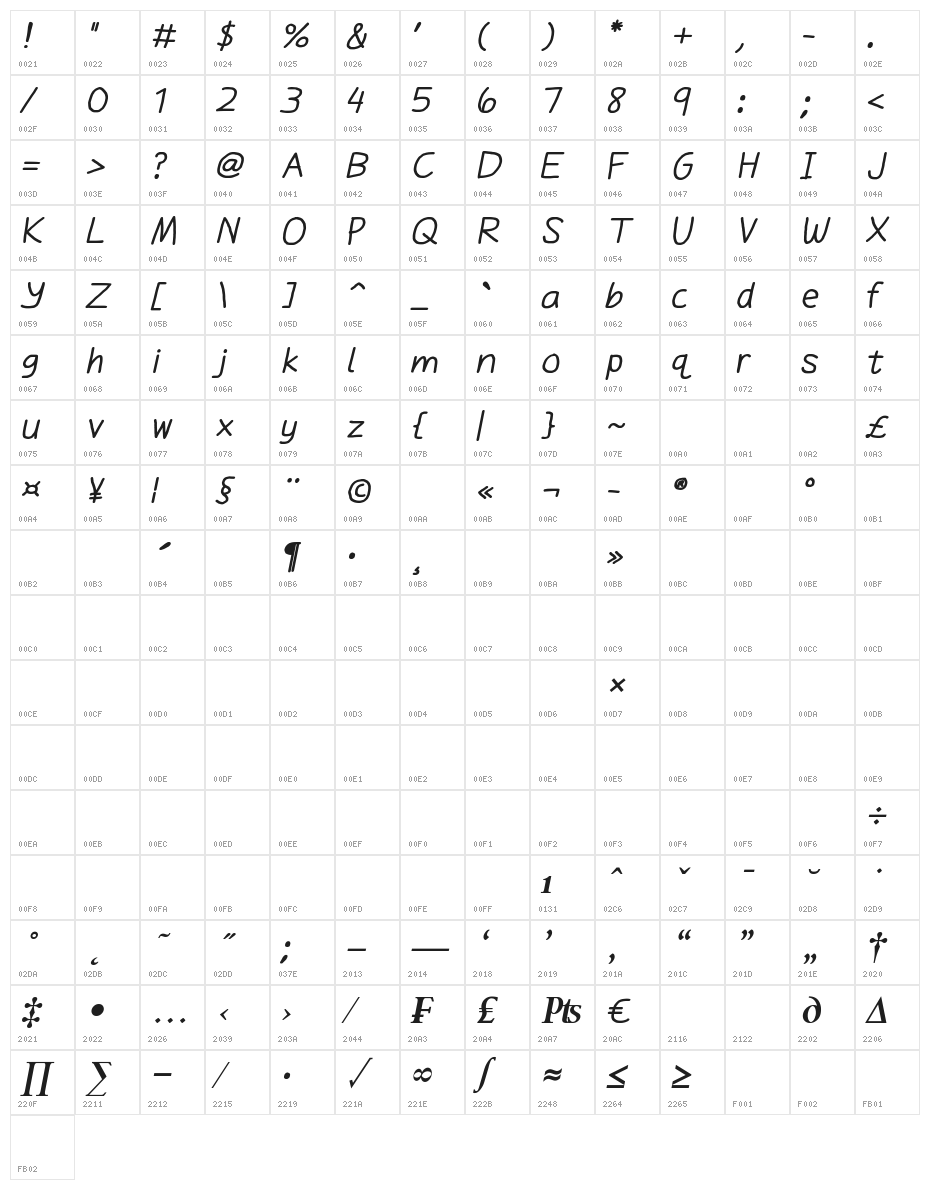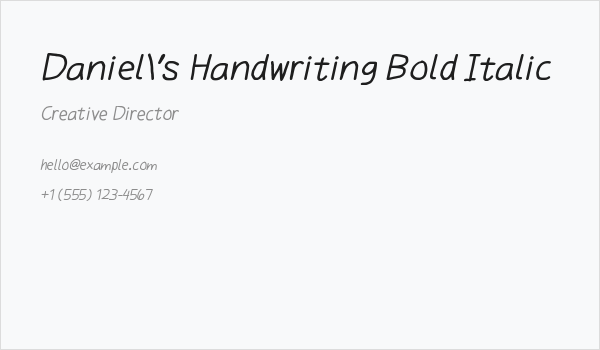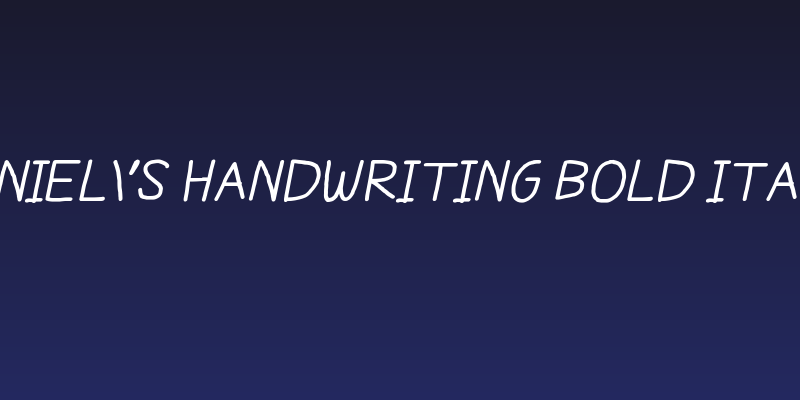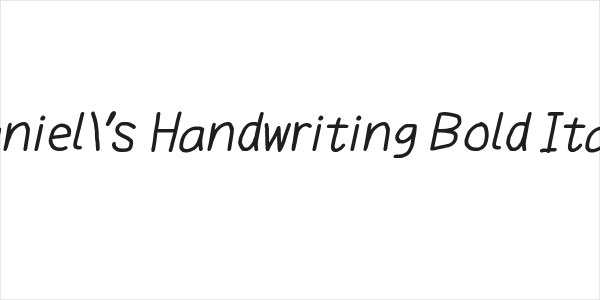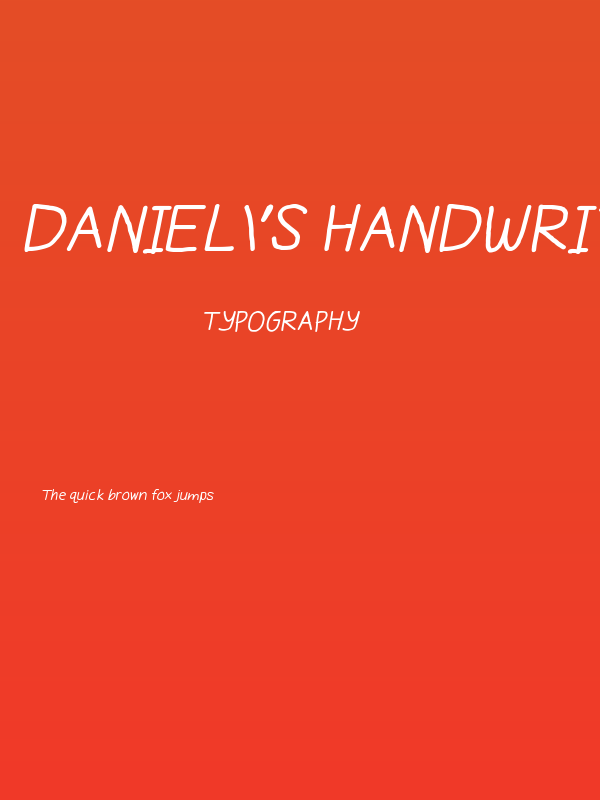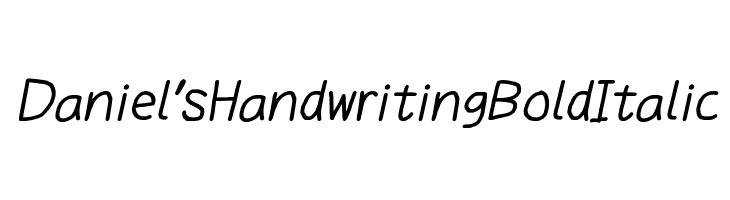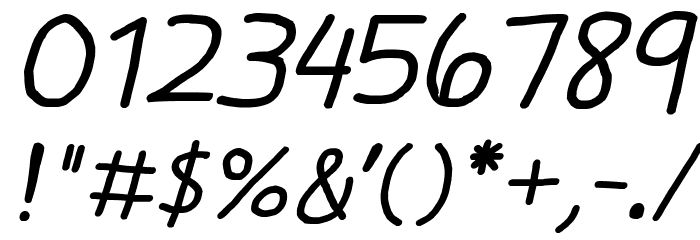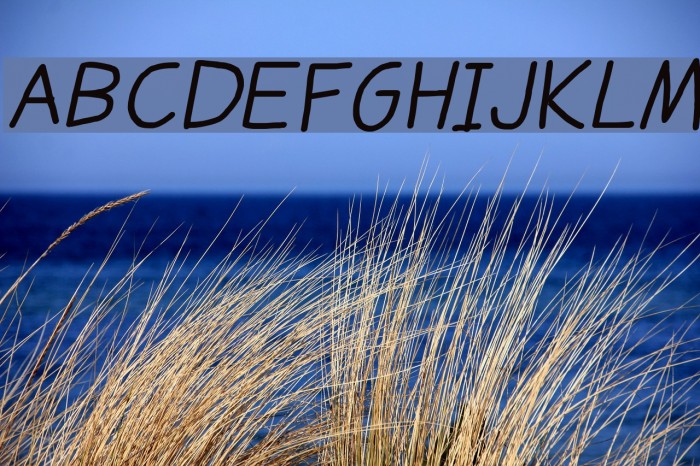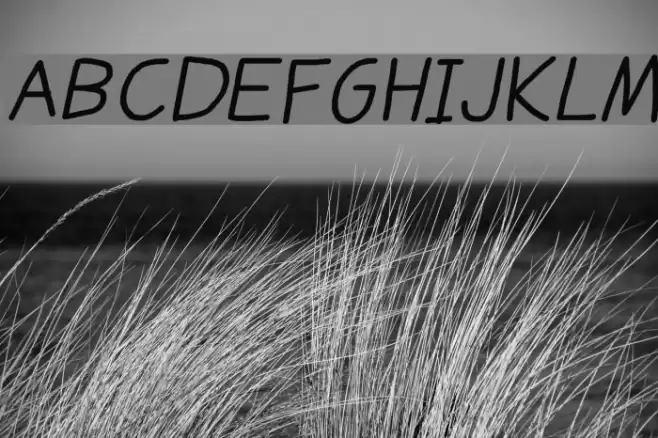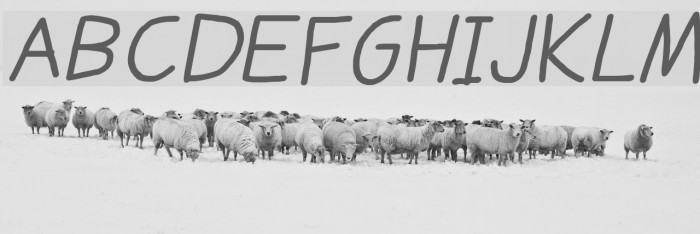
Daniel's Handwriting Bold Italic Font
Daniel's Handwriting Bold Italic Description
This font exudes a casual and personal touch, reminiscent of natural handwriting. The characters are fluid and slightly slanted, giving an italicized appearance that adds a sense of movement and dynamism. The strokes are bold, yet maintain a smooth and consistent flow, making it easy to read while retaining a handwritten charm. The uppercase and lowercase letters are well-proportioned, with rounded edges that soften the overall look. Numbers and special characters are crafted with the same attention to detail, ensuring uniformity across all glyphs. This font is perfect for projects that require a personal, approachable, and friendly aesthetic.
| Overall Style | Casual |
| Use Case | Logos, Invitations, Personal notes |
| Proposed Projects | Ideal for greeting cards, personal letters, invitations, and branding that seeks a friendly and approachable tone. |